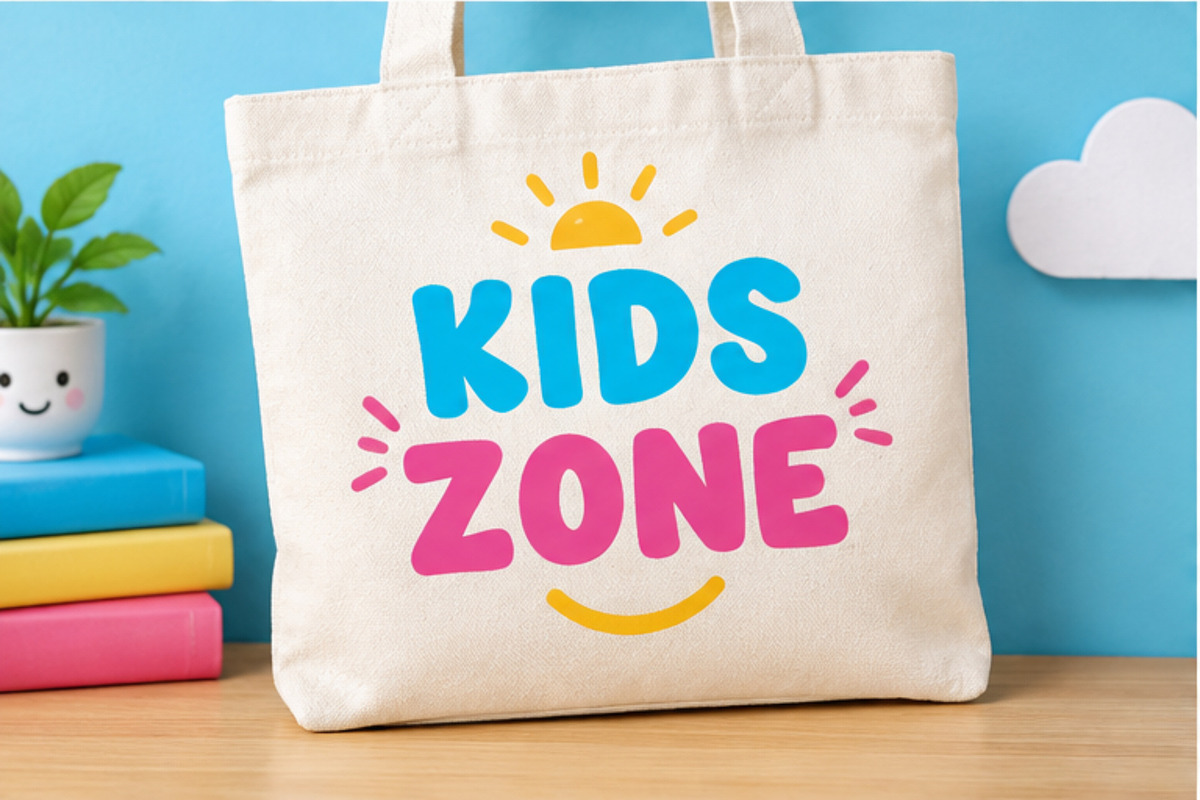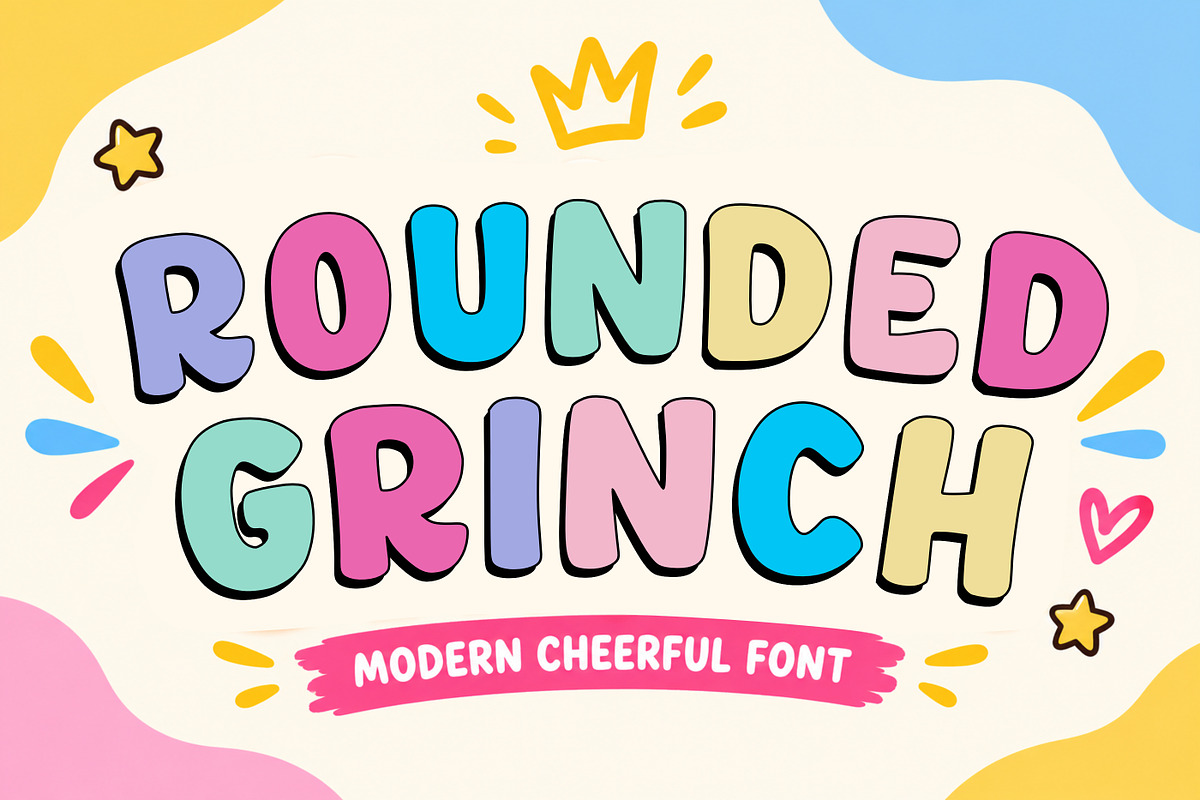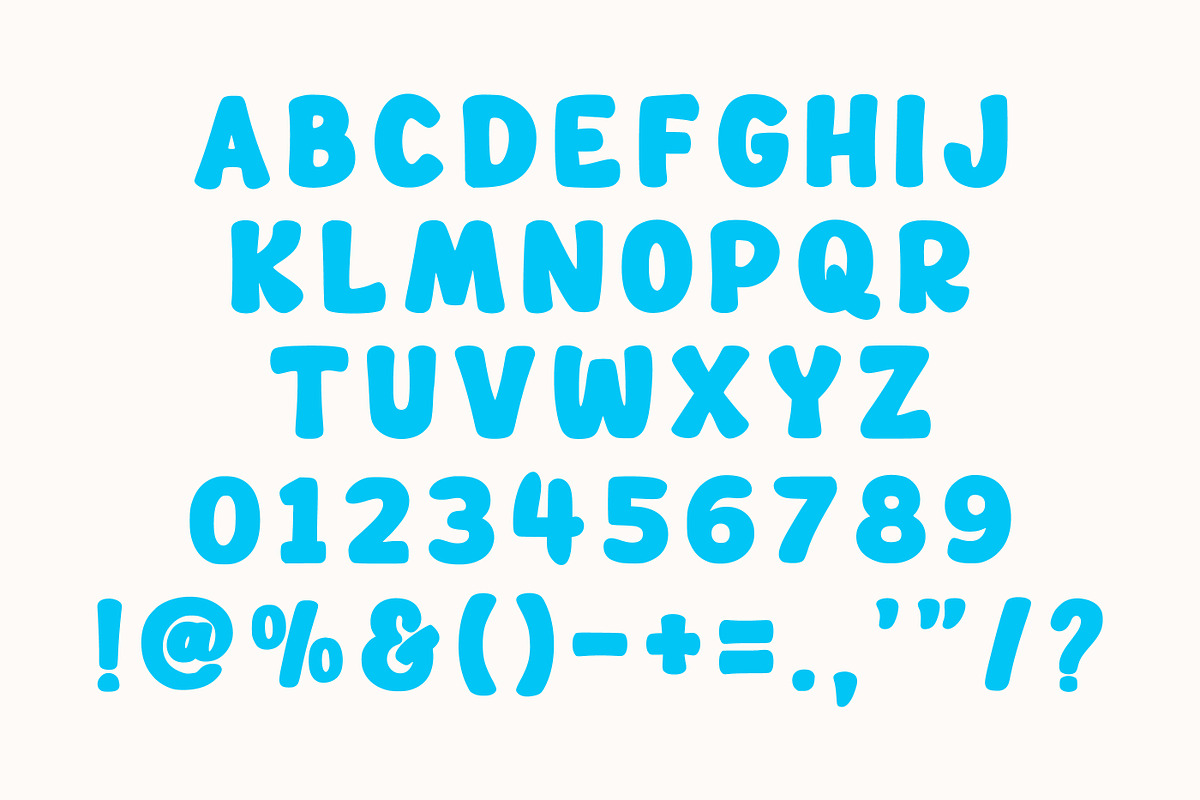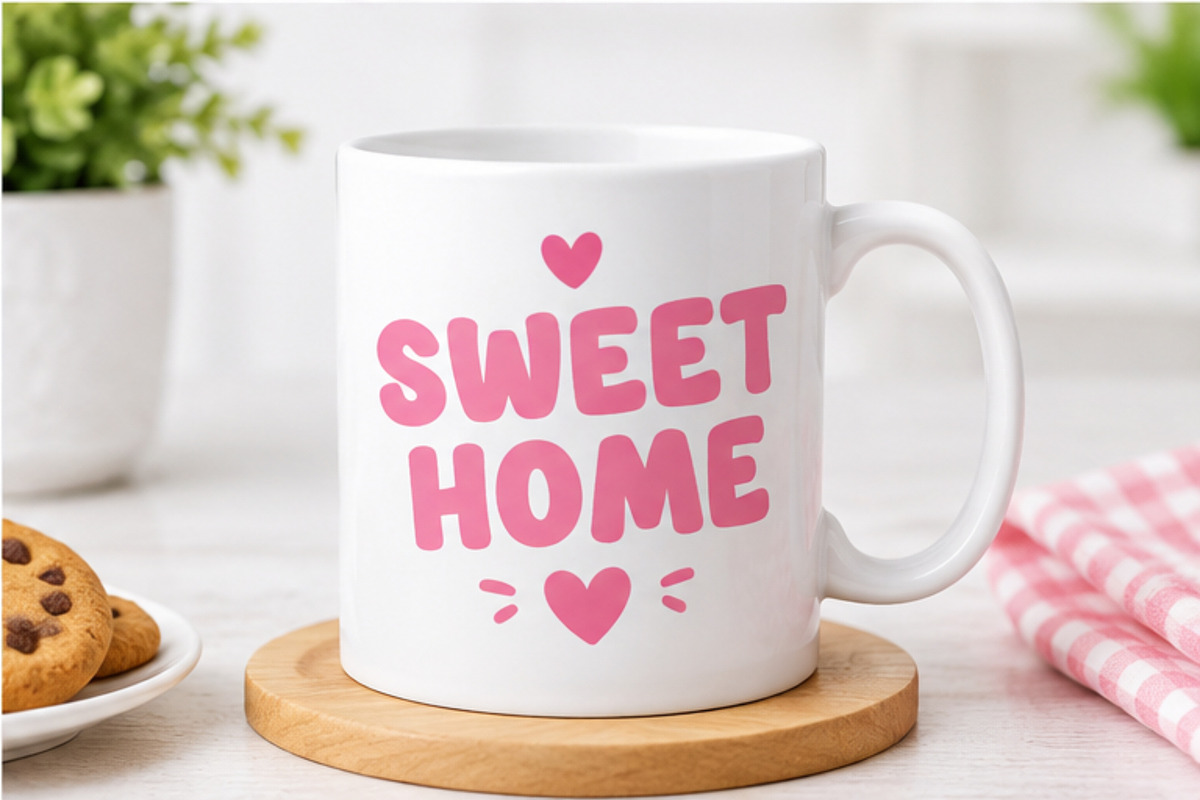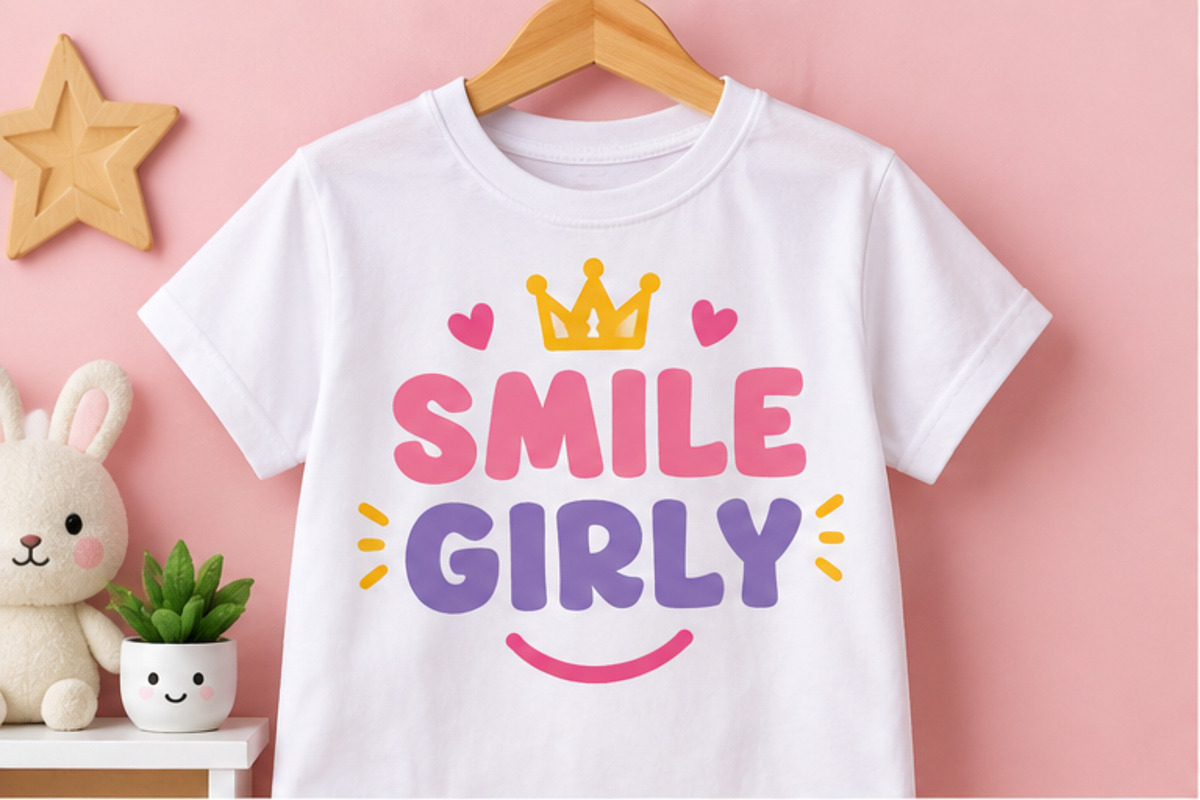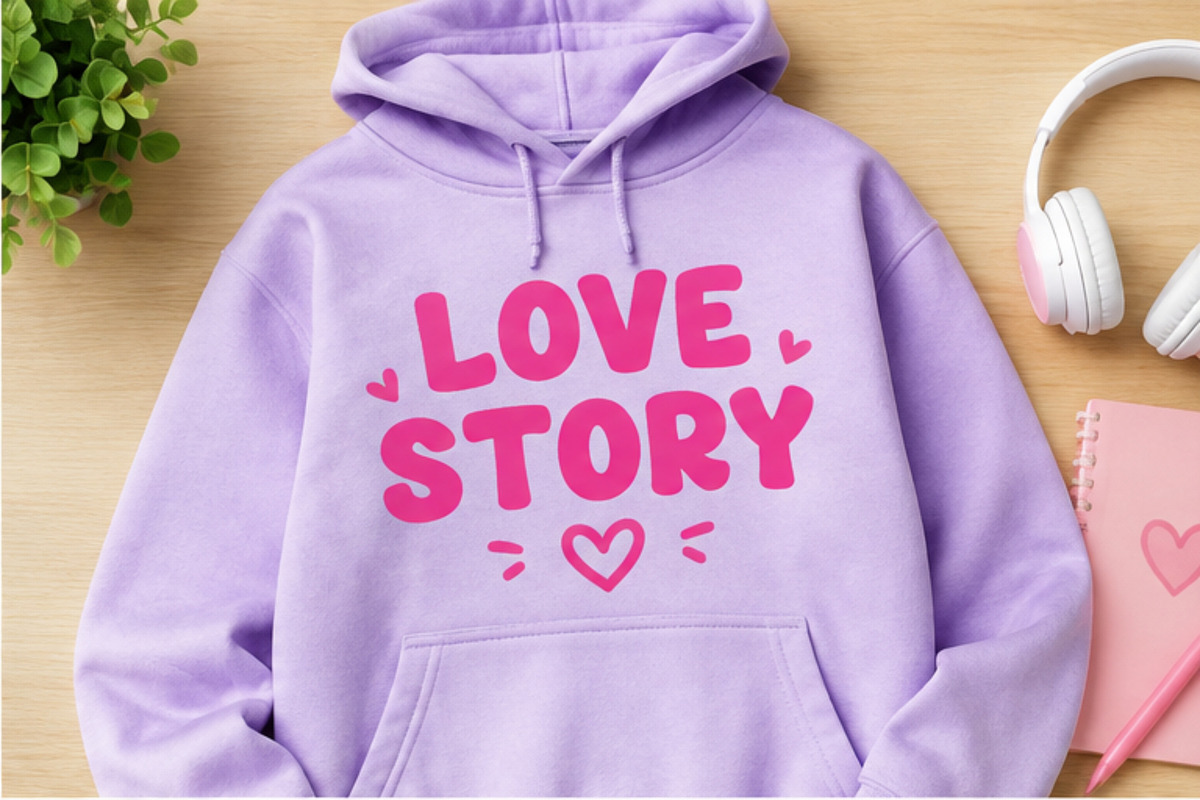
Rounded Grinch - Playful Font
Meet Rounded Grinch, a playful and cheerful rounded display font designed to bring a fun, friendly, and modern touch to your creative projects. With its chunky shapes, soft curves, and adorable personality, this font is perfect for designs that need a bold yet cute visual style.
Perfect for Christmas designs, kids projects, holiday crafts, T-shirt designs, stickers, posters, invitations, greeting cards, logos, packaging, sublimation, Cricut projects, and more.
Rounded Grinch works beautifully for both digital and printable designs, making it a versatile choice for designers, crafters, small businesses, and creative makers.